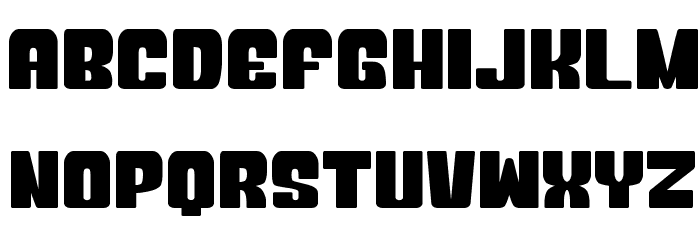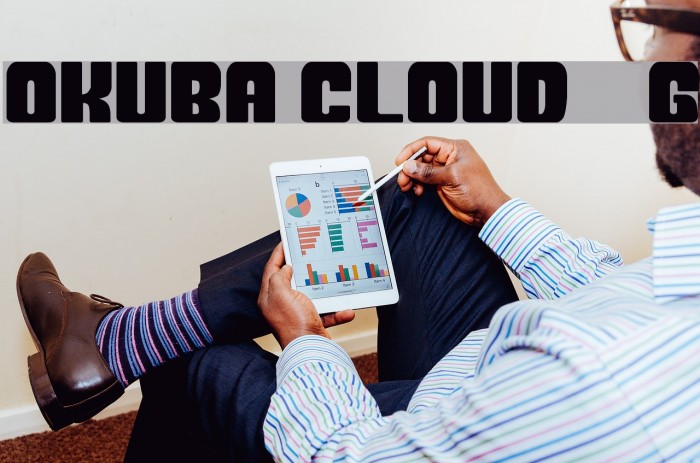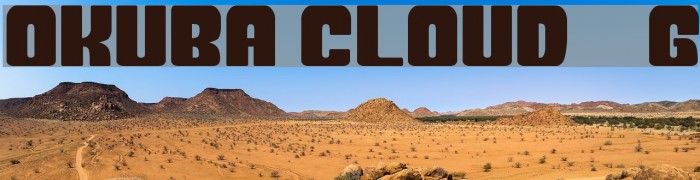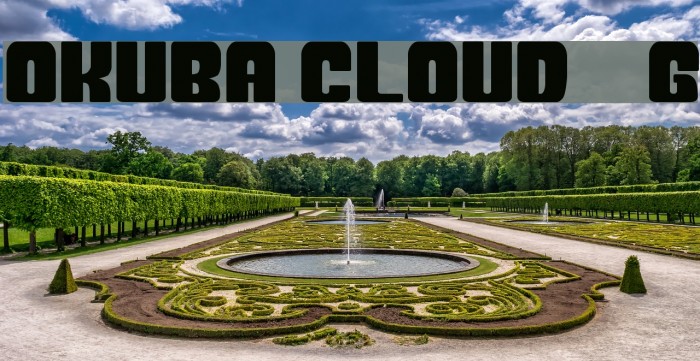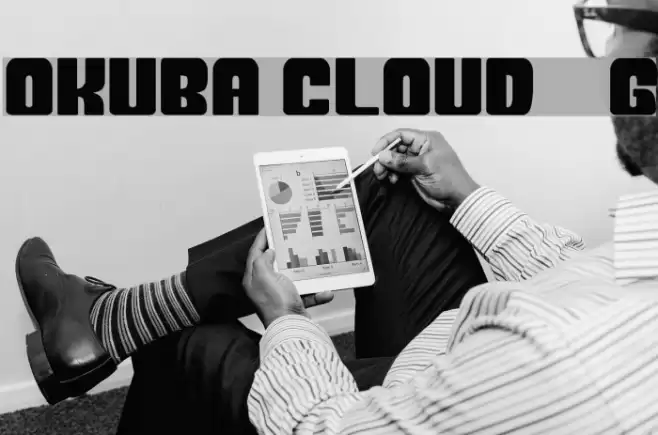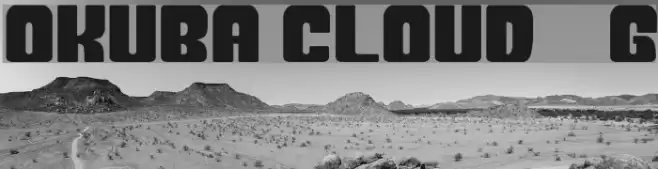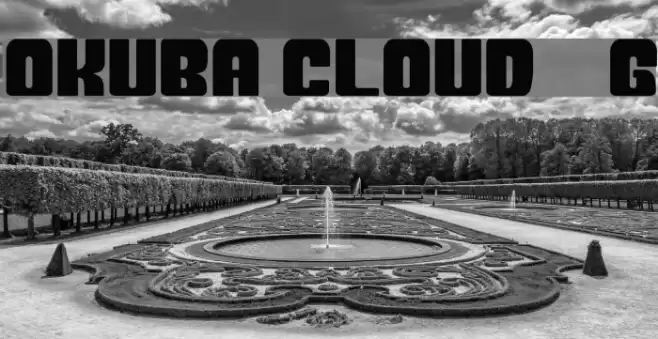
Okuba Cloud__G Font
This bold and impactful font features a strong, geometric design with thick, uniform strokes. The characters are blocky and robust, giving a sense of stability and strength. The rounded edges soften the overall look, adding a touch of approachability to the otherwise solid structure. The font maintains consistent weight throughout, ensuring readability and a cohesive appearance. Its bold nature makes it ideal for attention-grabbing headlines or titles. The numbers and special characters are designed with the same boldness, ensuring uniformity across all elements.
A bold, geometric font with rounded edges and uniform strokes.
- Proposed Projects: Ideal for branding, posters, headlines, and any project requiring a strong visual impact.